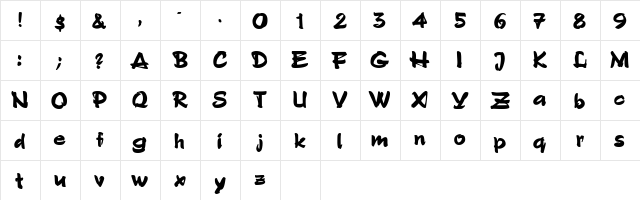
BuckeyeSSK Bold Font Preview
BuckeyeSSK Bold
Design Context for BuckeyeSSK Typeface
BuckeyeSSK is a composed and adaptable typeface that performs quietly and consistently across a wide range of design contexts. The heavy weight commands attention and anchors typographic hierarchies.